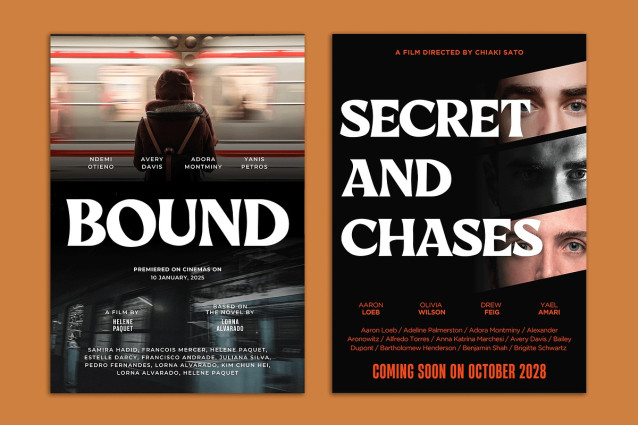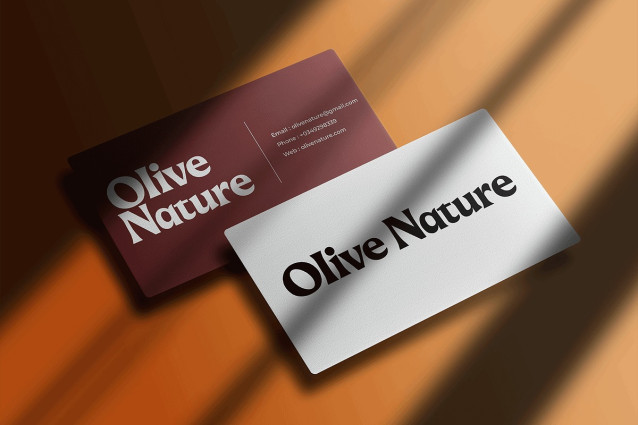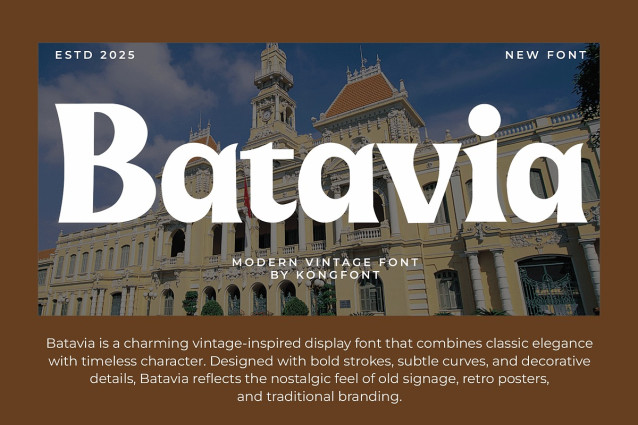
Batavia Display Font
Batavia Display Font a modern vintage font that seamlessly blends nostalgic charm with a fresh, contemporary feel. Inspired by timeless retro typography yet refined for today’s design needs, Batavia brings a perfect balance of classic curves and modern precision.